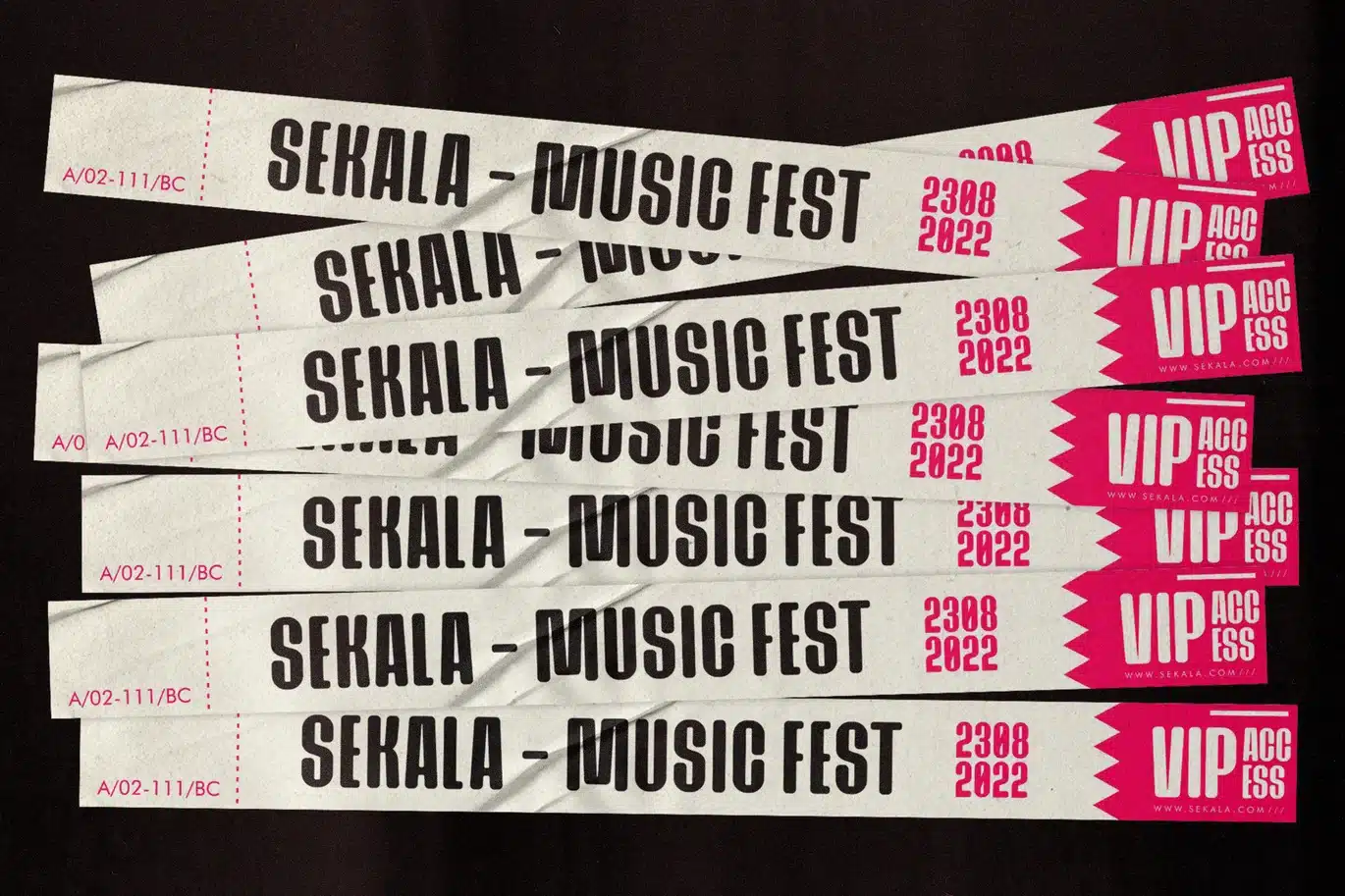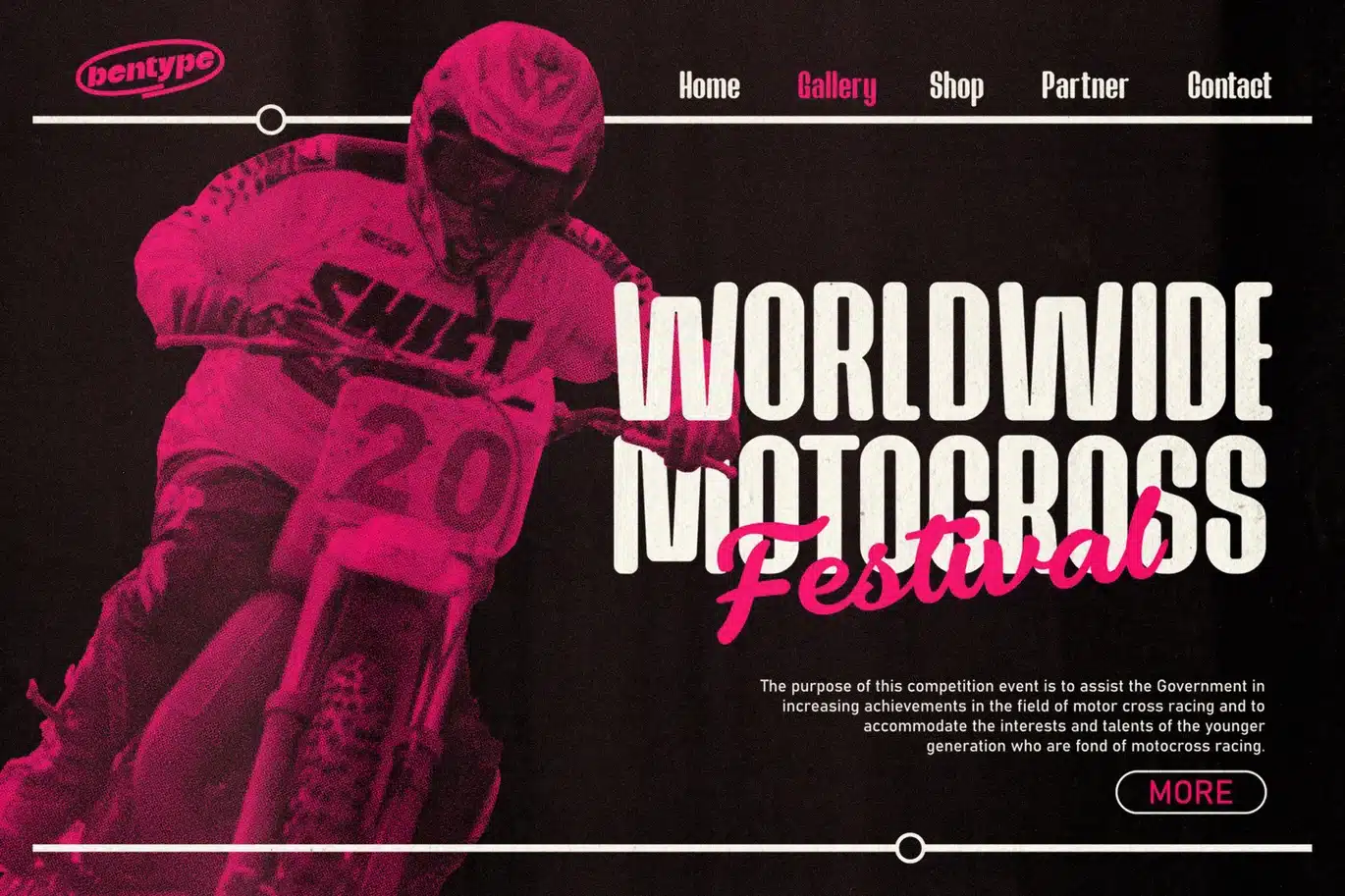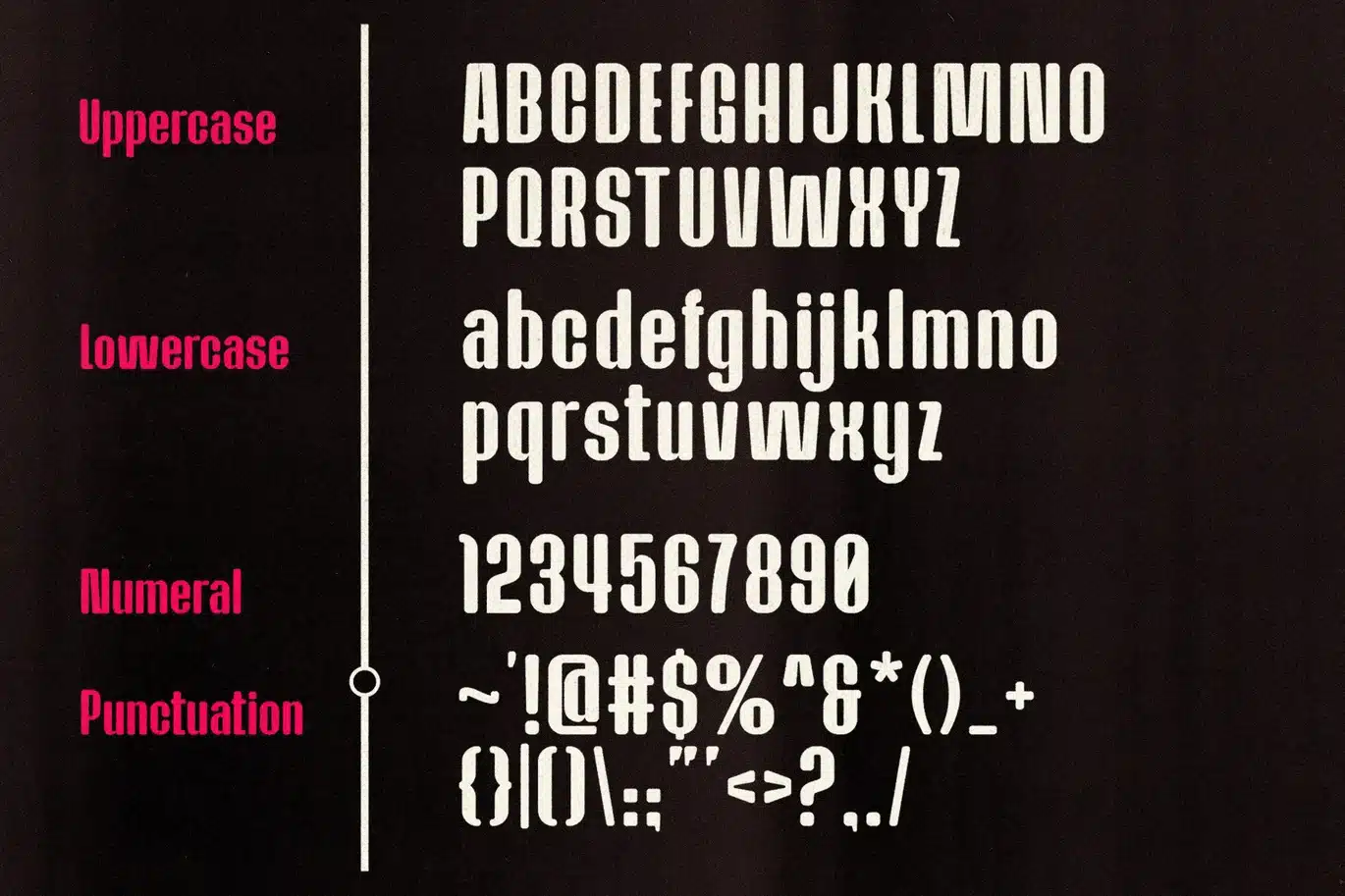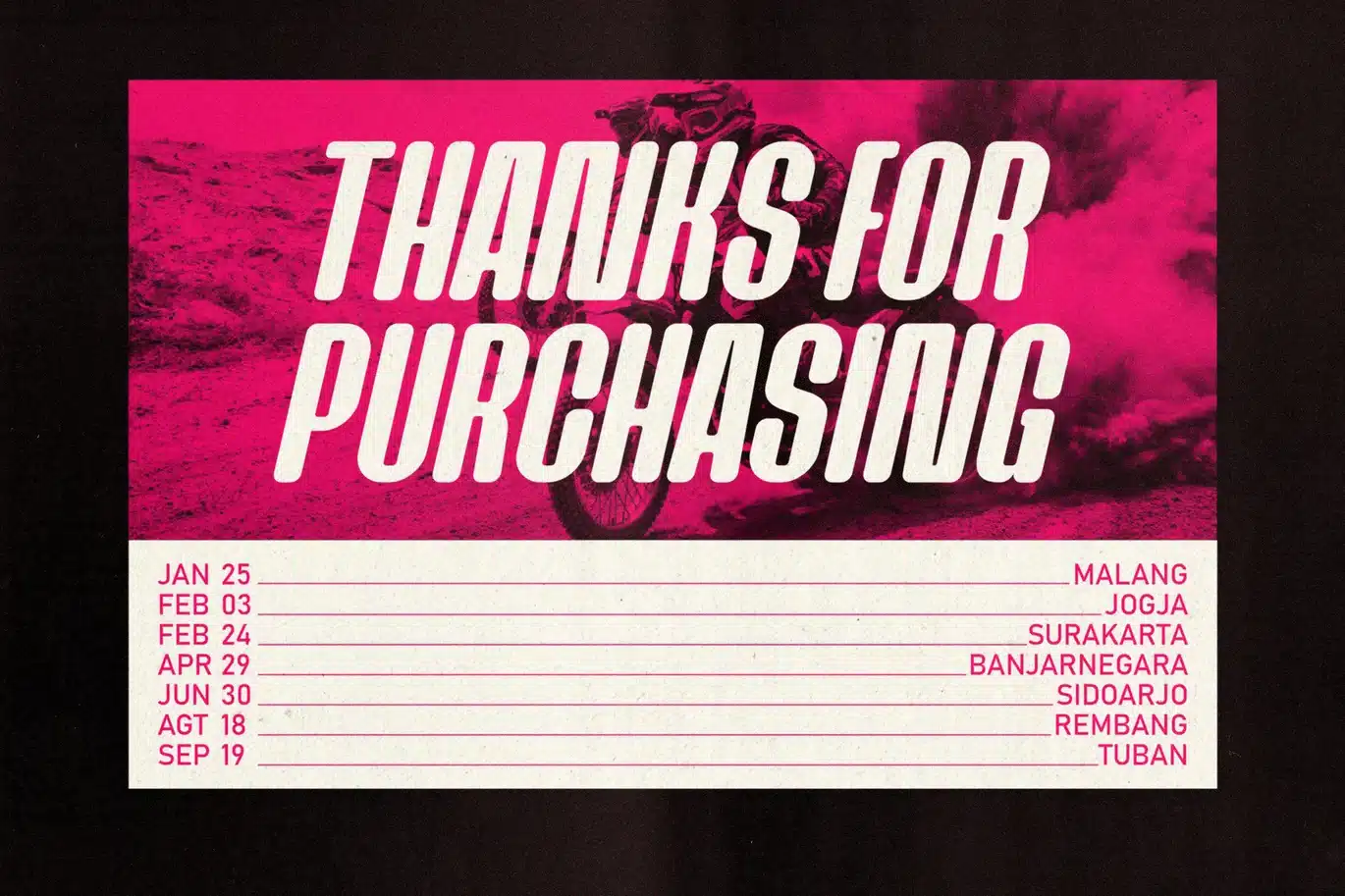
Caridora – Sans Serif Font
Caridora is a condensed sans-serif typeface created to be used for bold titles with distinctive shapes into a display fonts way to make it legible for contemporary use. It comes in two different styles, normal and italic.
Really great font to make it easier for you creative work such as — branding, film titles, packaging, advertising, posters, and web or app.